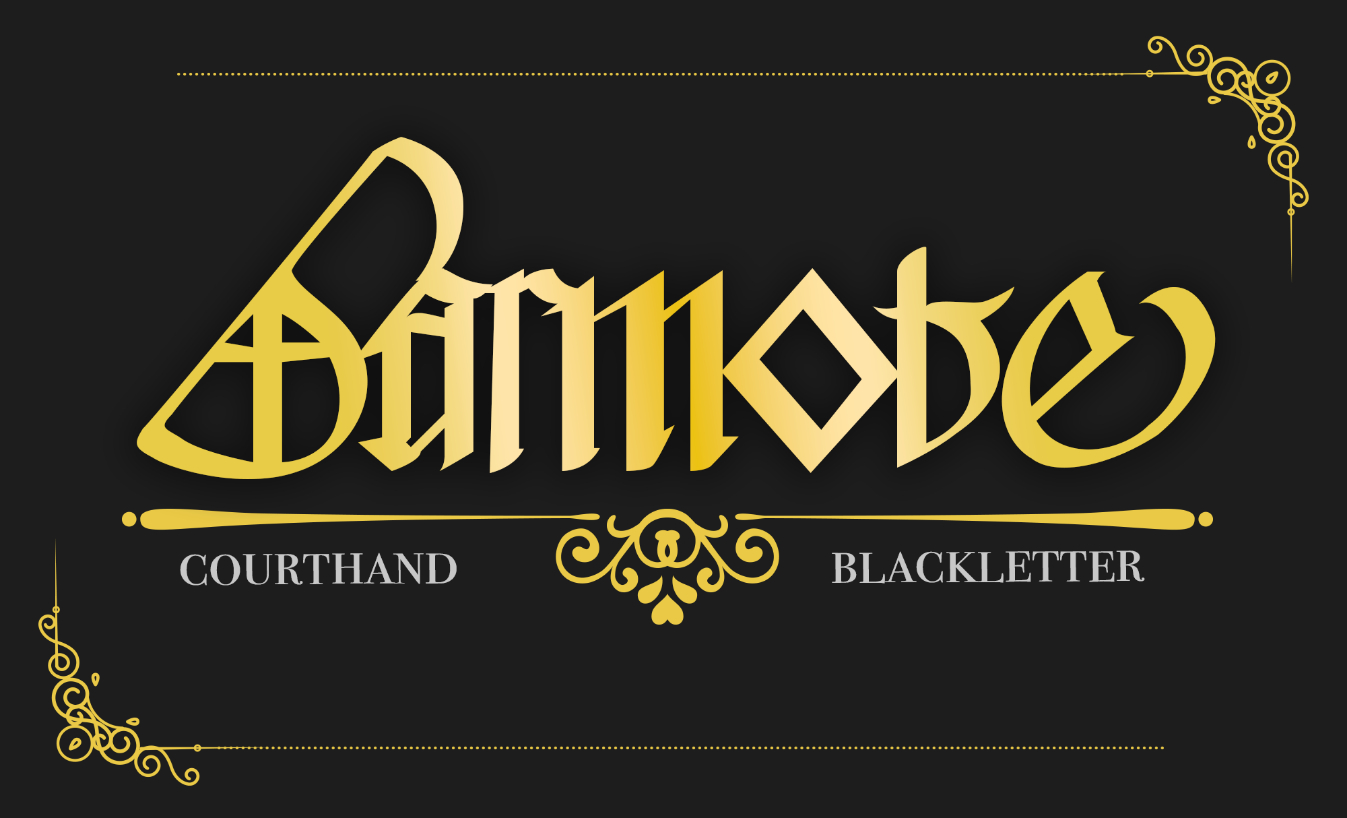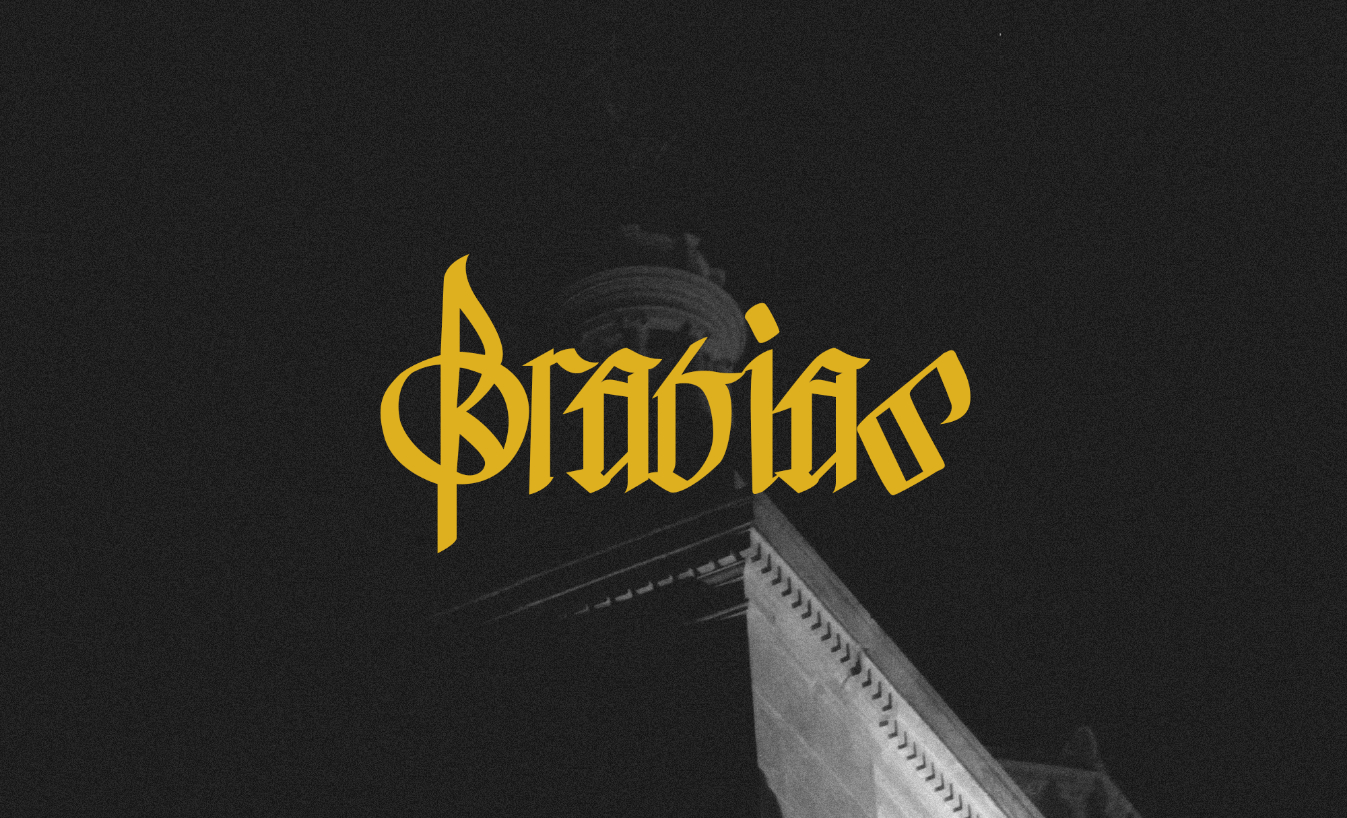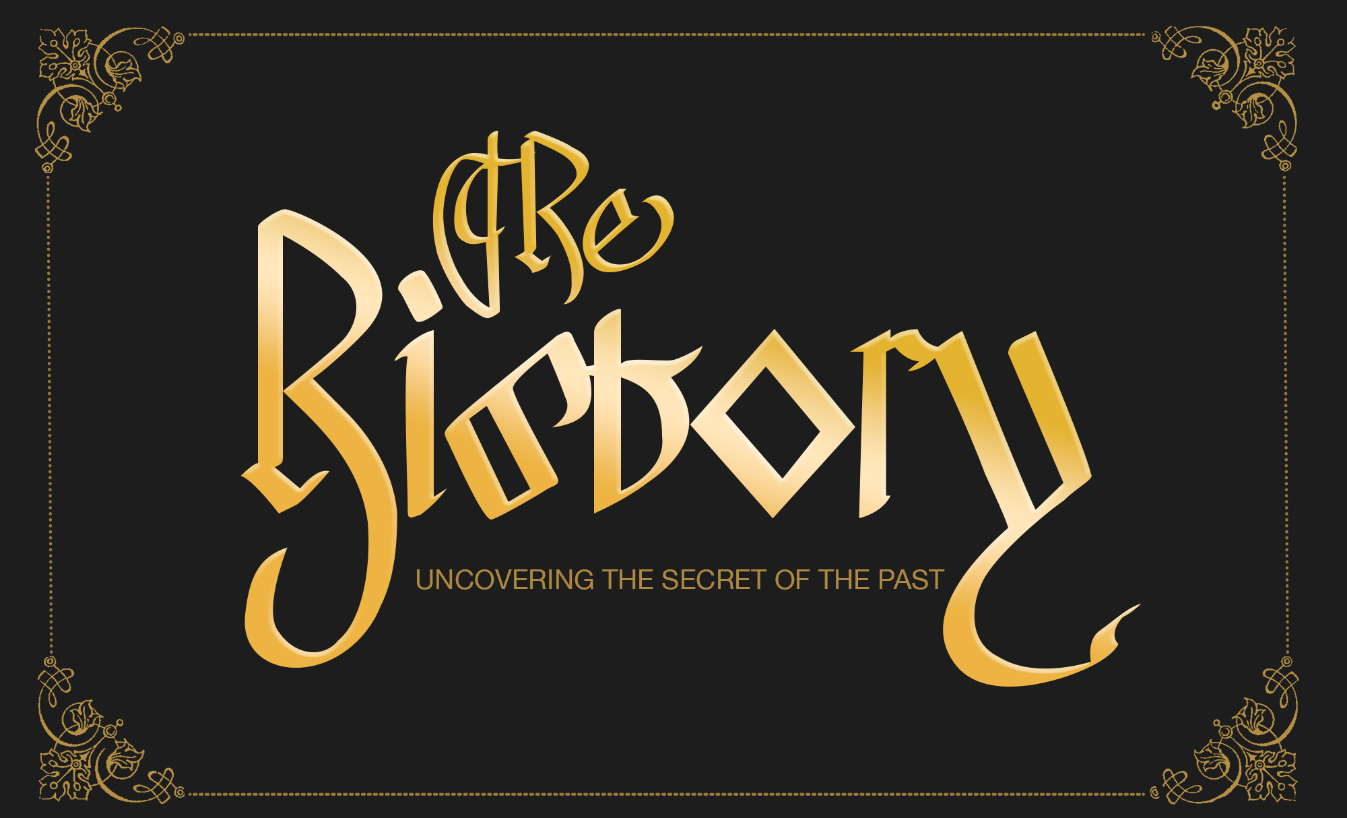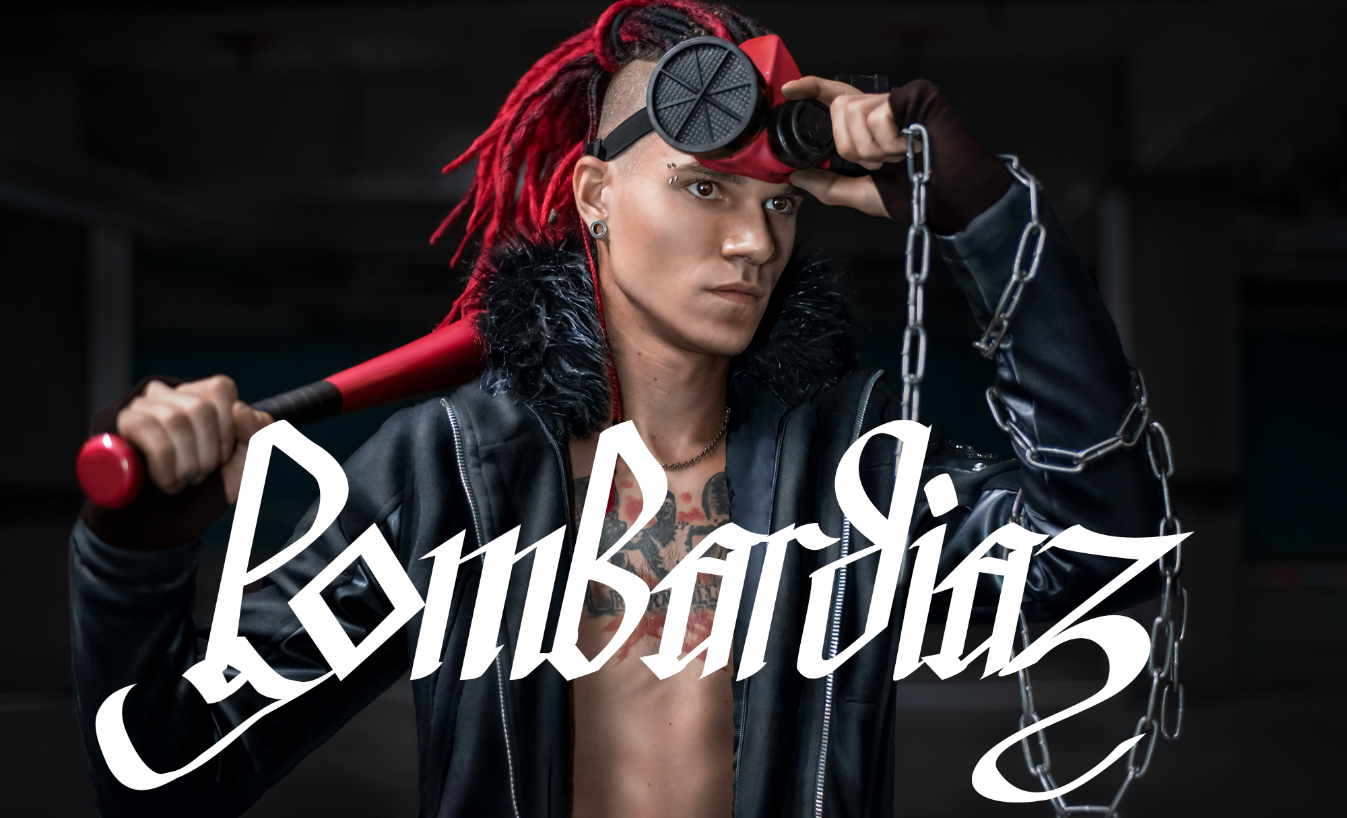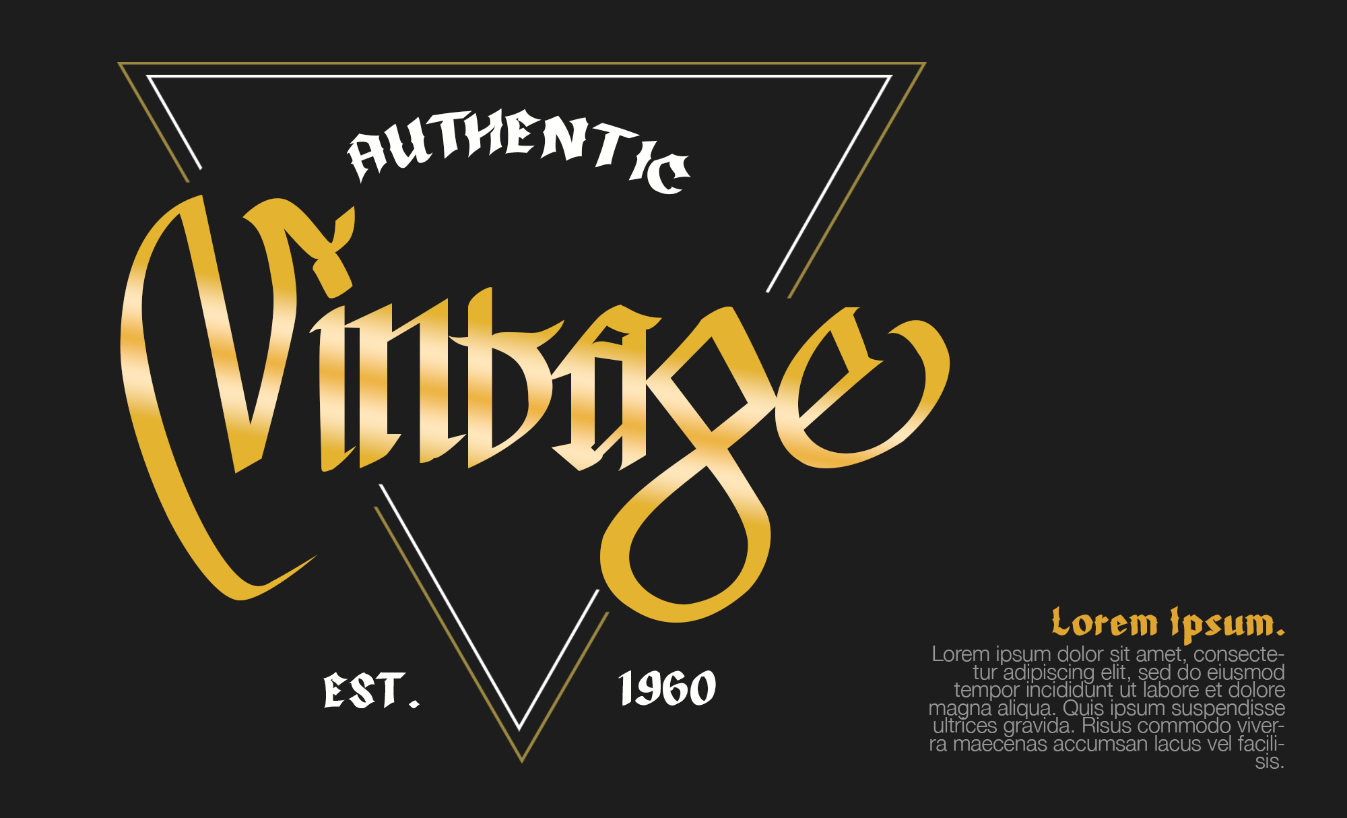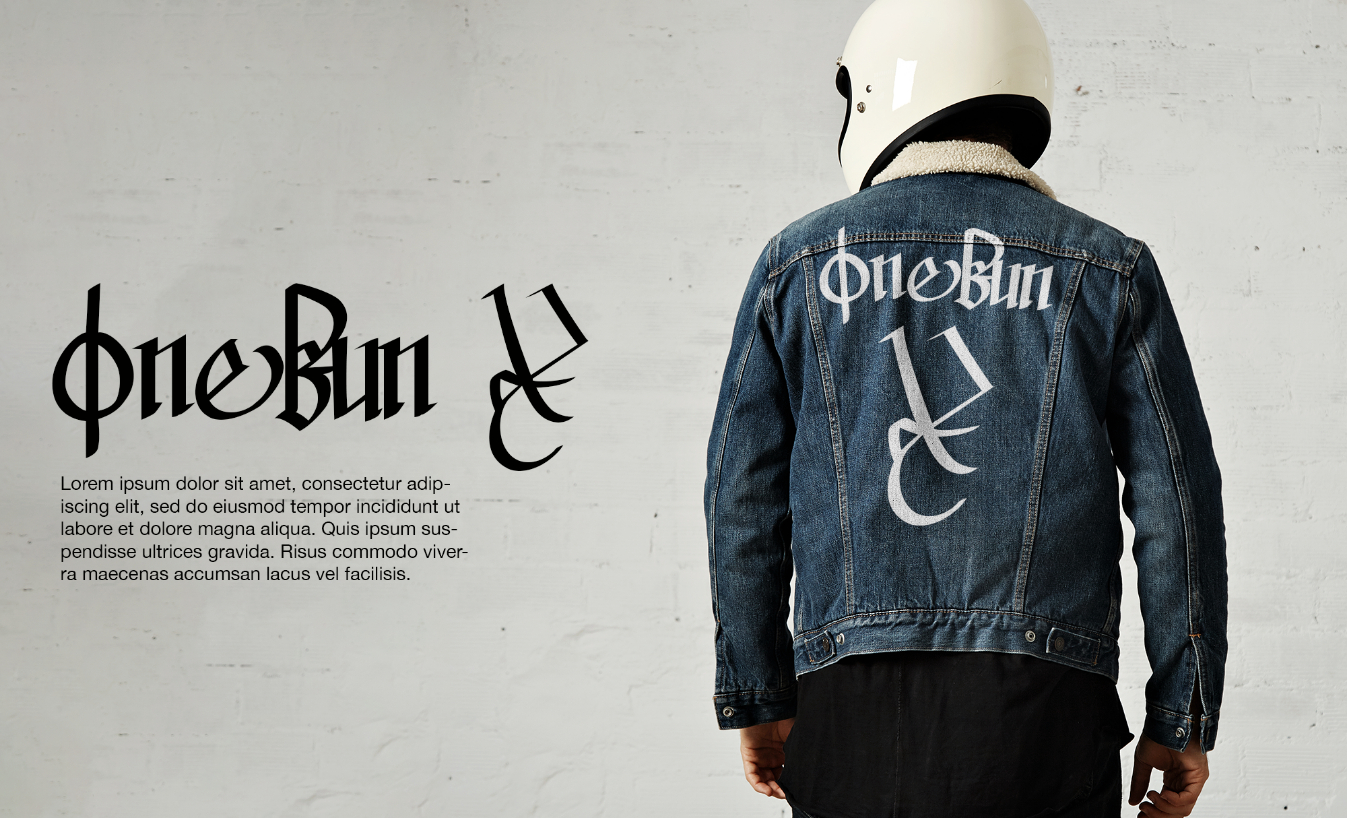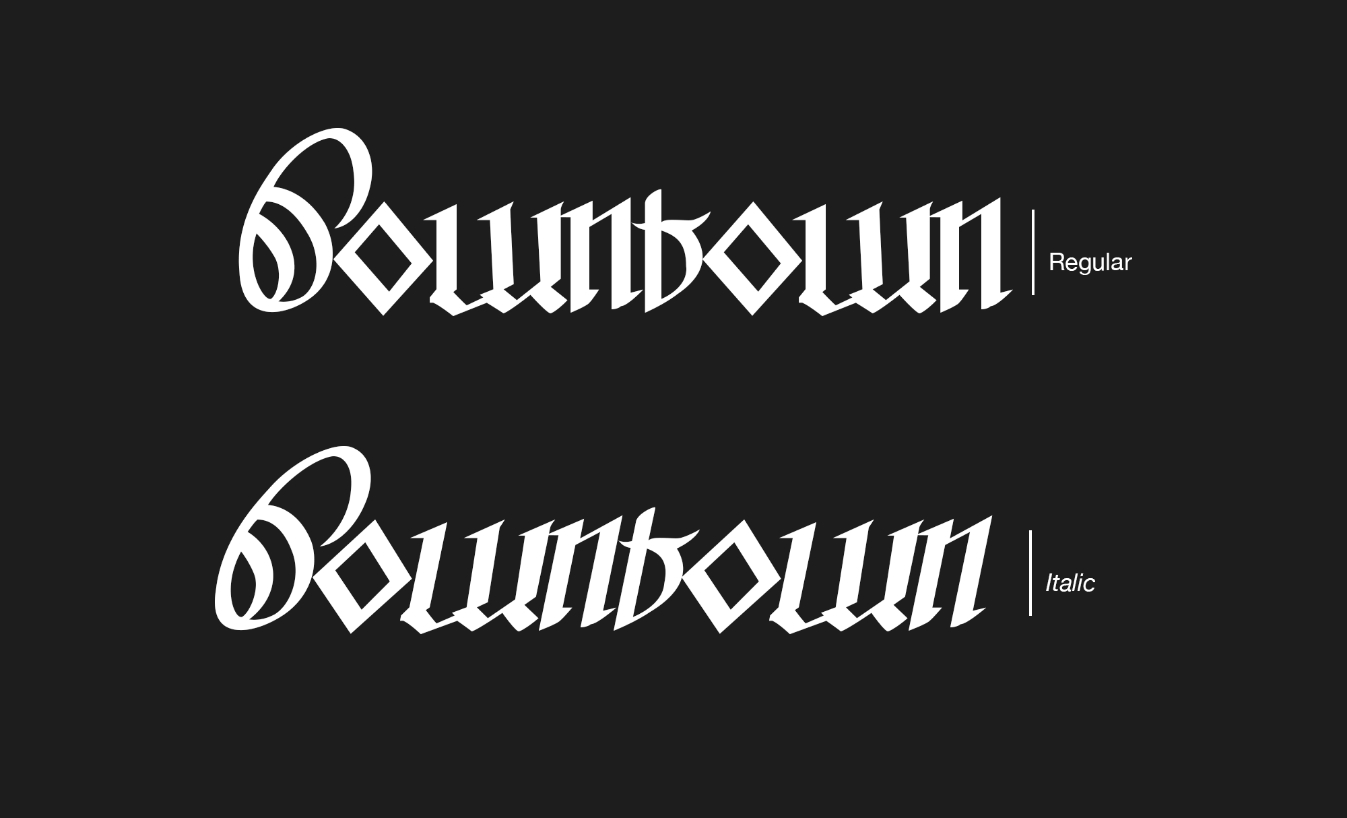
About Barmote Courthand Font
Introducing Barmote, a stunning font that will transport you back to the Medieval era of England with its Courthand Script-inspired design. Barmote boasts a unique line and handwritten style, which gives it a vintage, elegant, classy, and bold feel. Perfect for titles, monograms, logotypes, highlights, headlines, greeting cards, art craft typography, branding, and so much more. Don’t miss out on the opportunity to elevate your designs with Barmote!